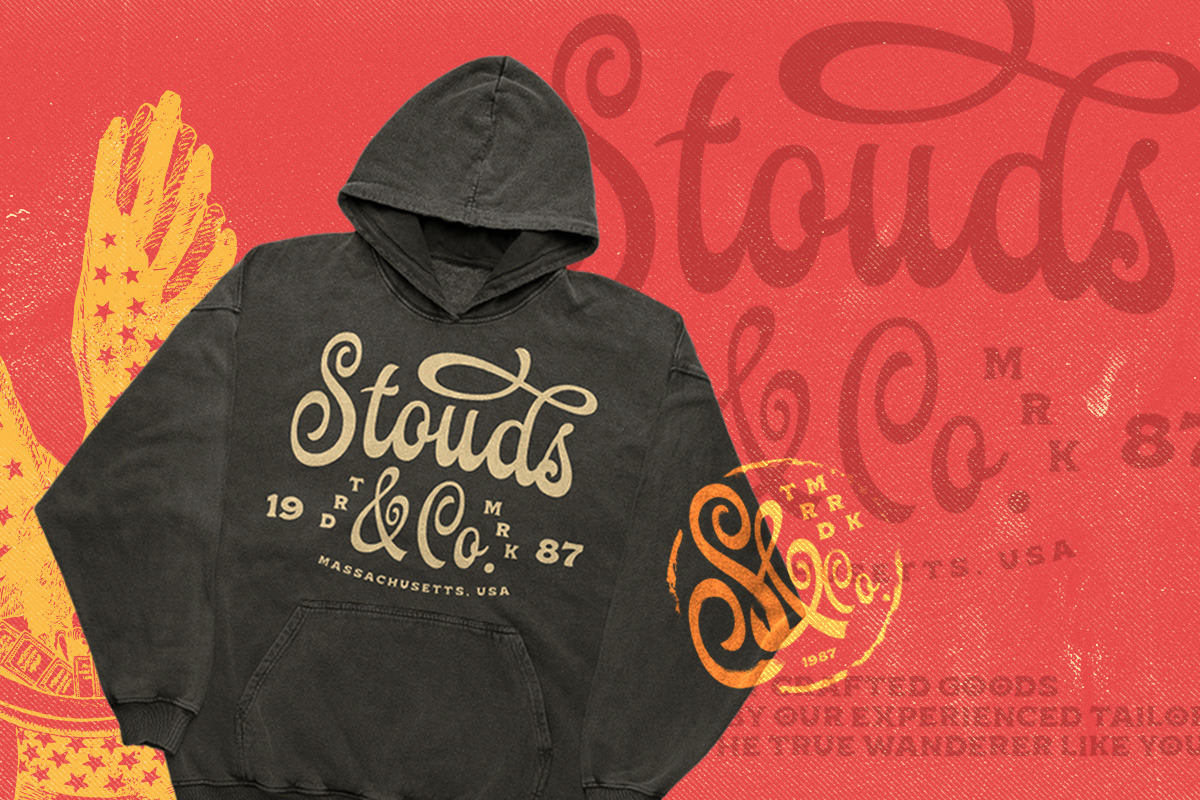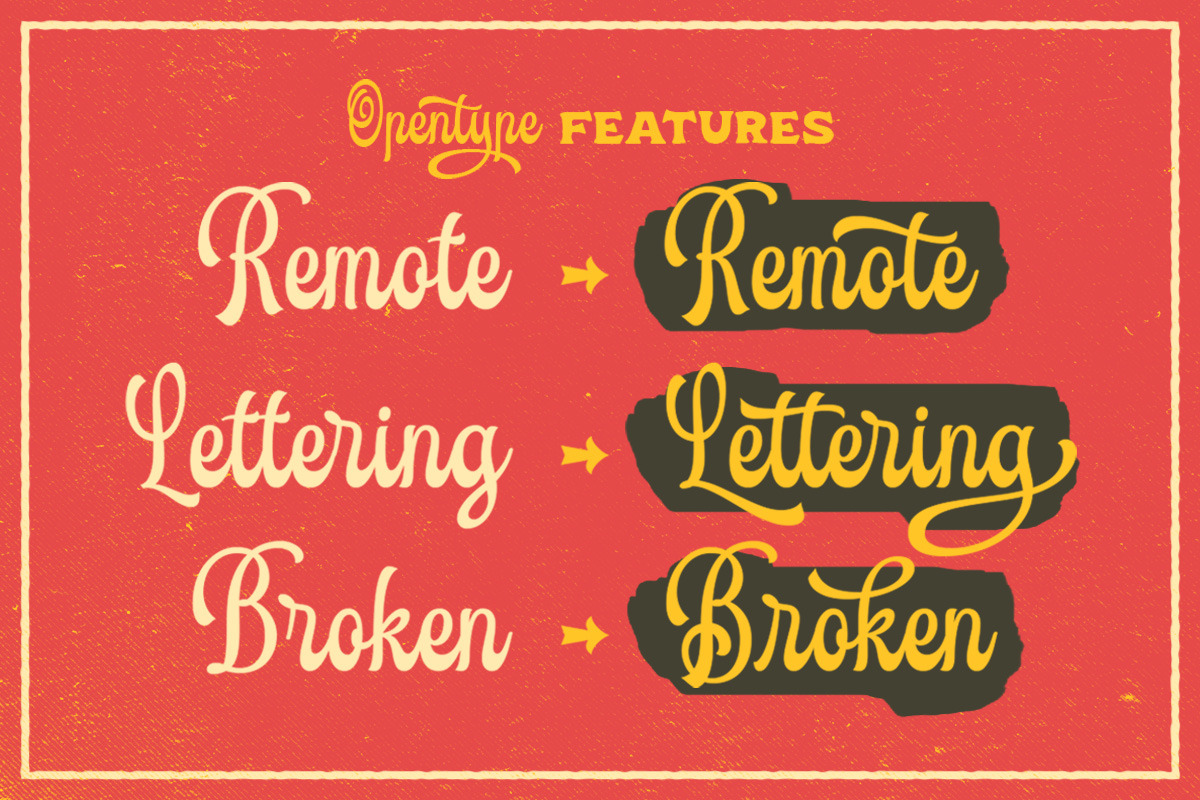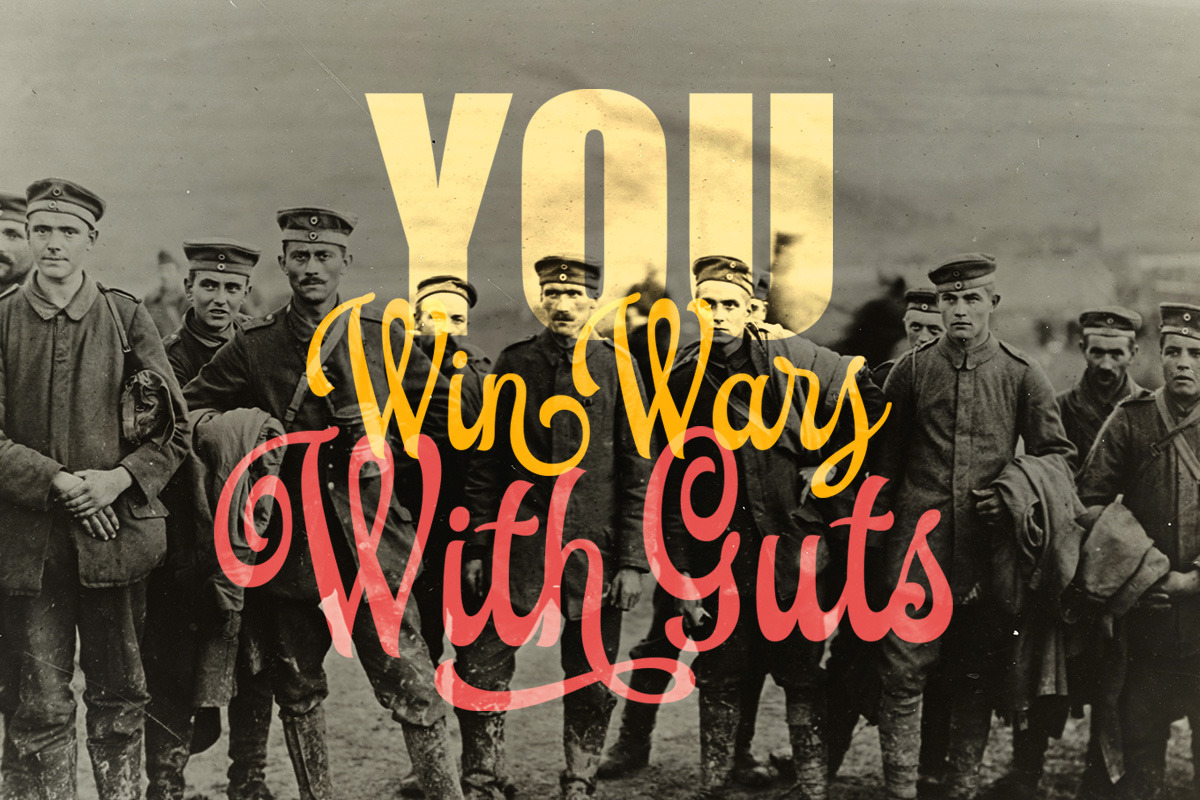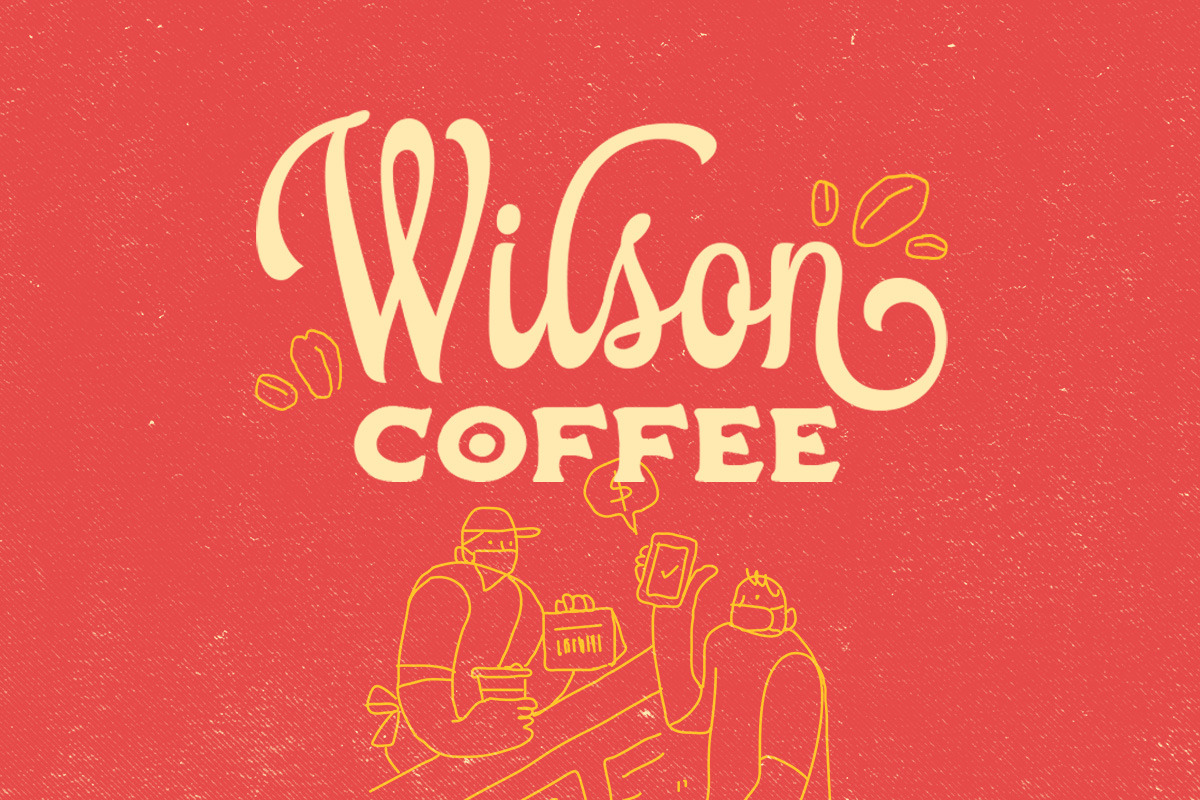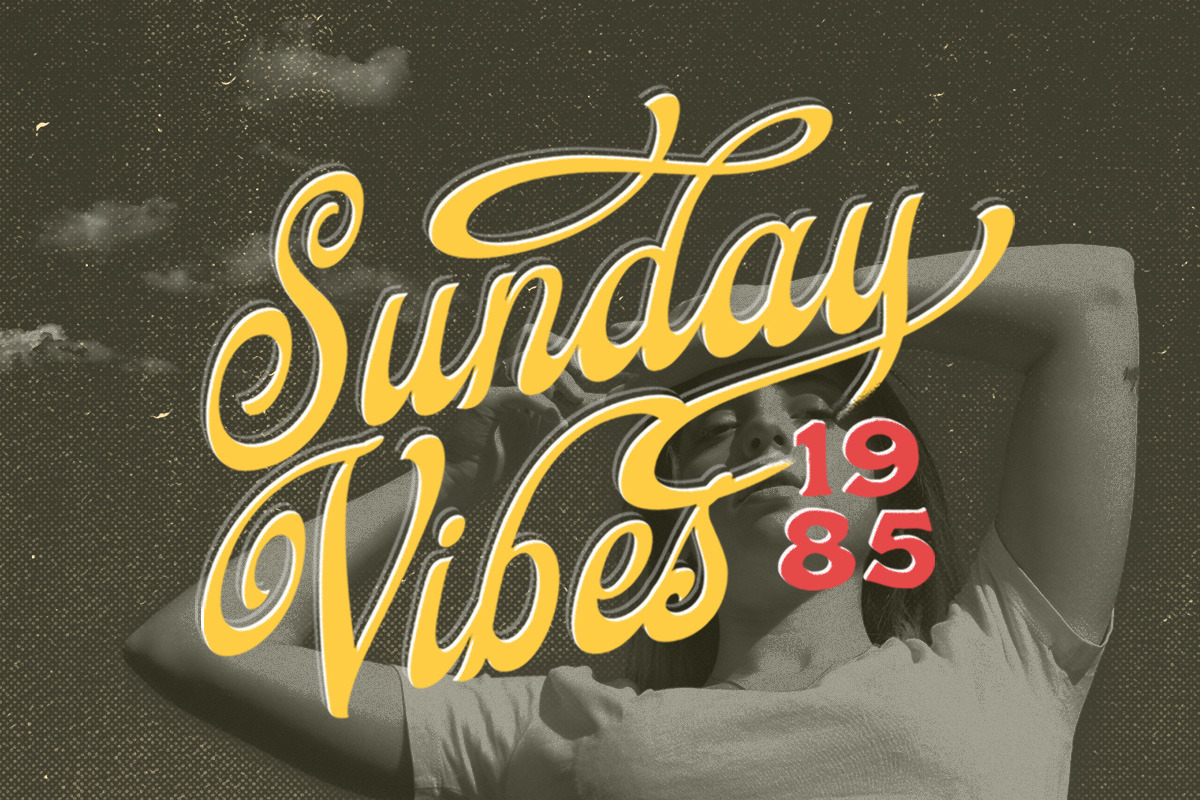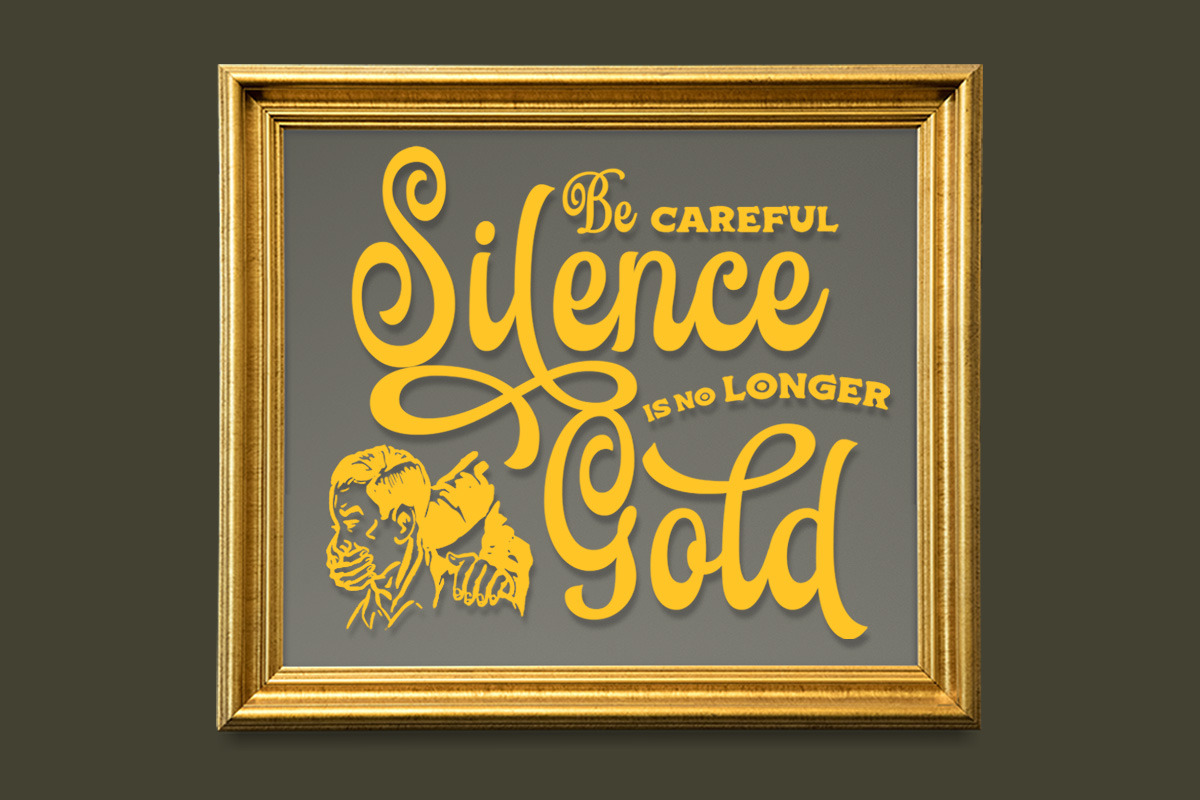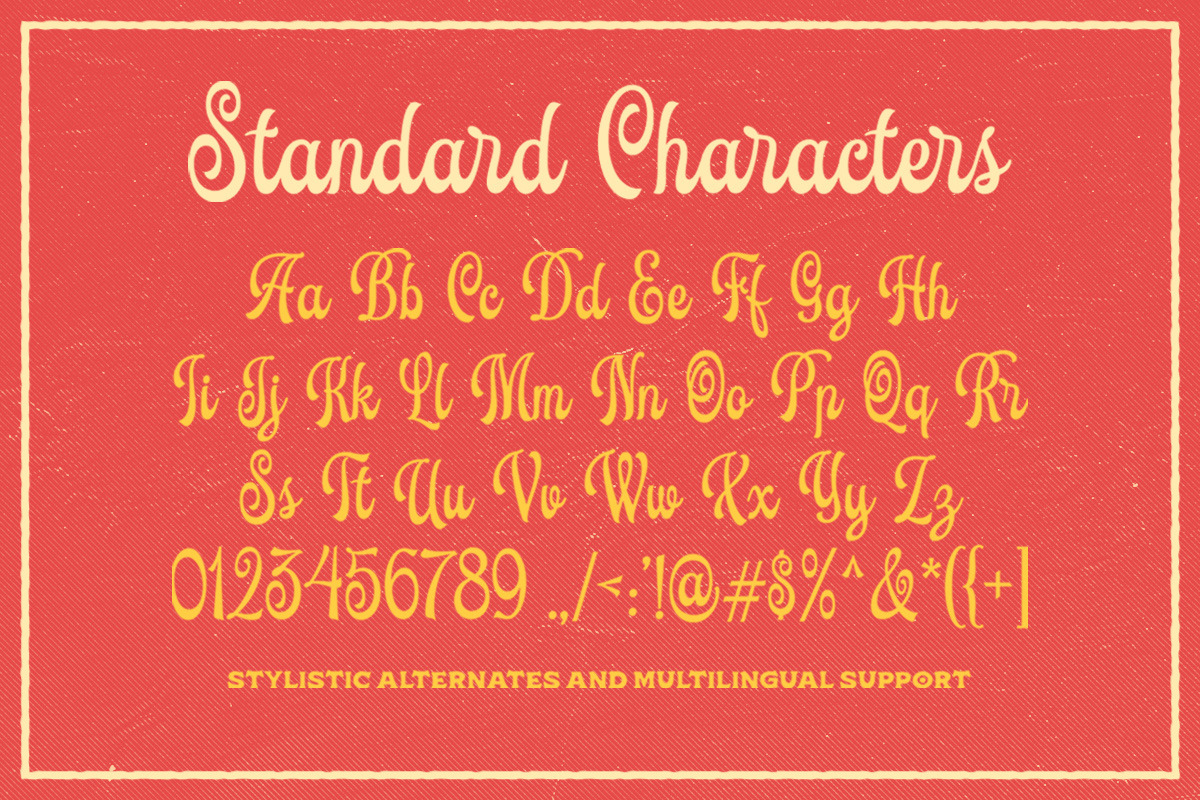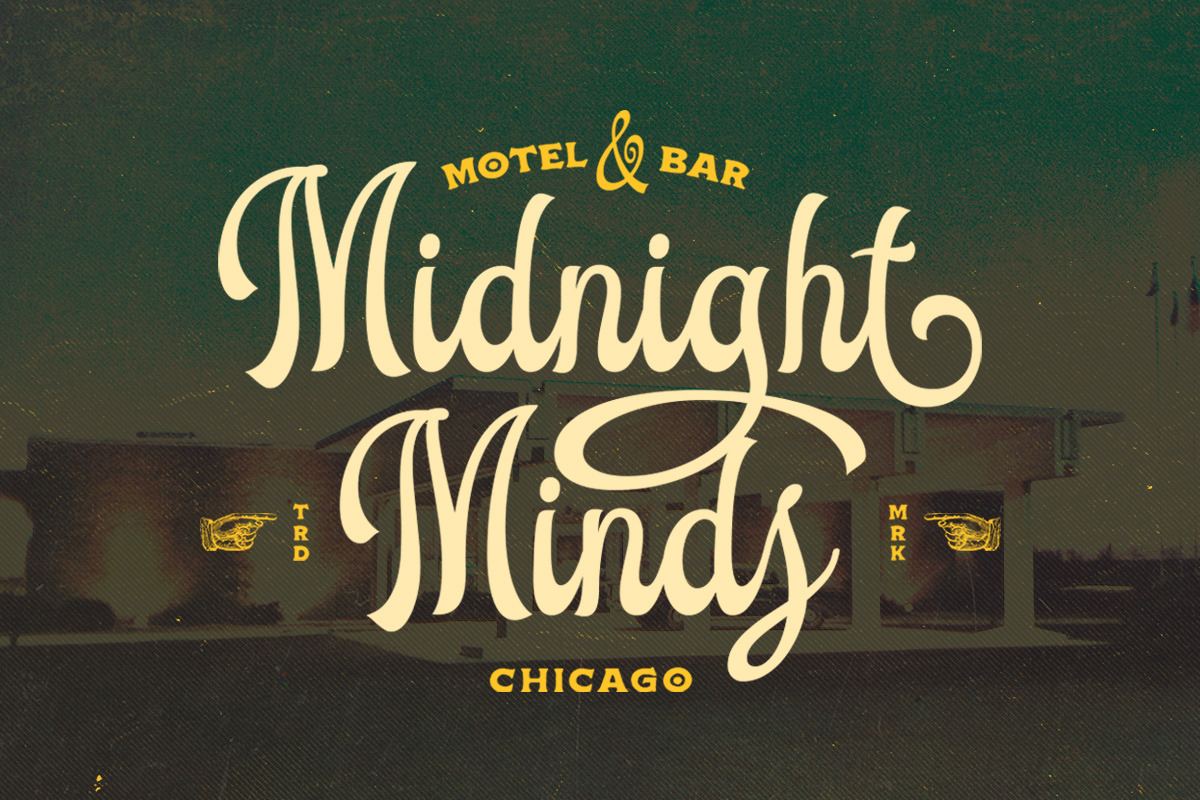
Dansley - Display Script
Meet Dansley - a script font that brings together the vintage and classic looks with a unique twist. Its bold form and chic details add a touch of sophistication and personality to any design project especially in logo, and the other various formal forms such as invitations, labels, logos, magazines, books, greeting / wedding cards, packaging, fashion, make up, stationery, novels, labels or any type of advertising purpose.